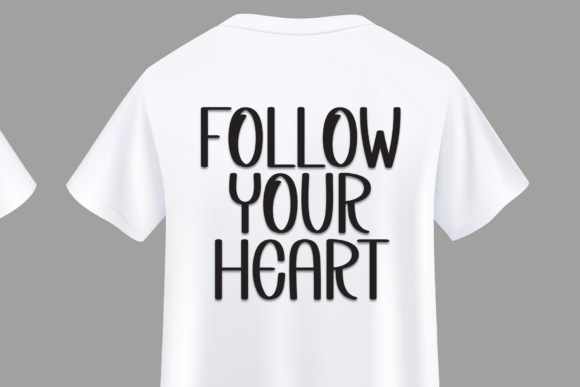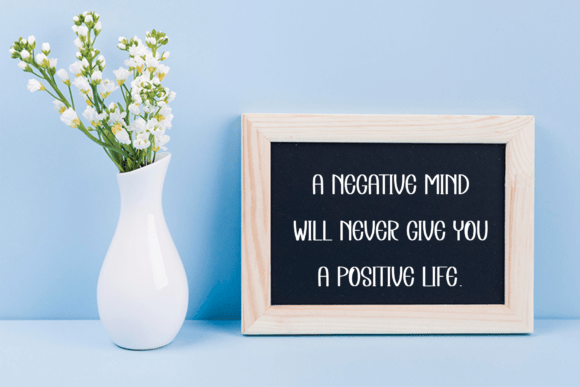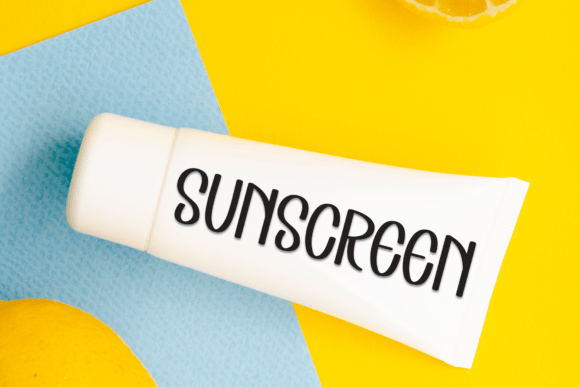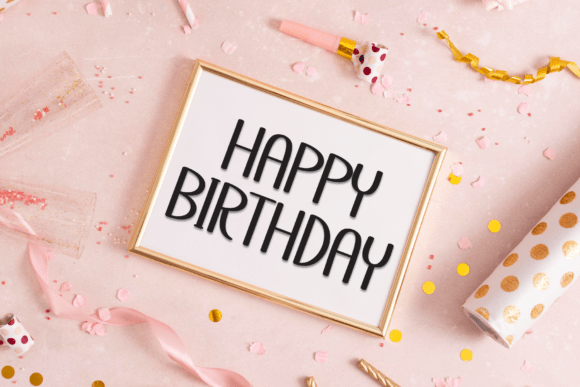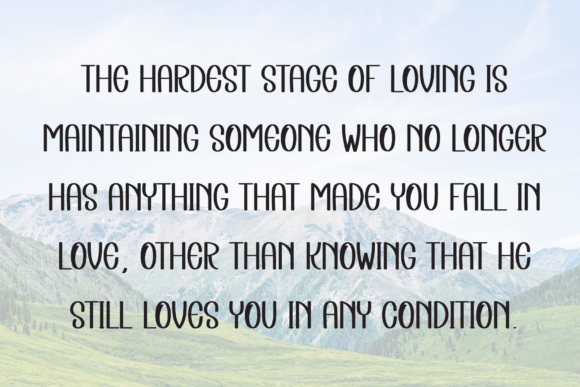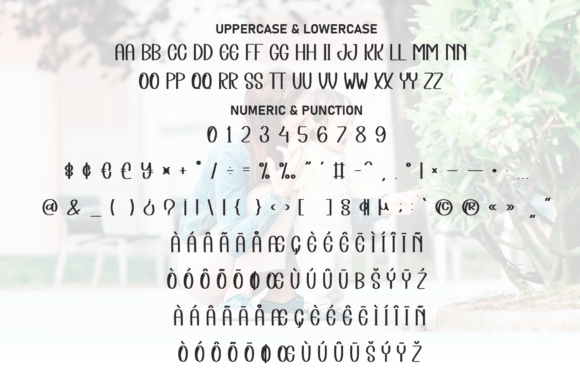
Introduction to Mother Outside Font
As a designer, have you ever been stuck on finding the perfect font to convey a message that’s both heartwarming and visually appealing? I know I have! It’s those moments when I’m brainstorming ideas for a special project, and I stumble upon a font that just clicks. For me, that font is the Mother Outside Font – a charming, handwritten display font that’s sure to add a touch of sweetness to any design project.
Key Features of Mother Outside Font
- High-quality design: Mother Outside Font is a premium font designed for creative projects, offering a unique and elegant look.
- Perfect for creative projects: Mother Outside Font is ideal for use in creative projects, such as branding, logos, and typography-based designs.
Honest Review: Mother Outside Font
Here are some of the things that work well with this font: ✨ High quality design, ✨ Beautifully crafted characters, ✨ Perfect for creative projects that require a personal touch.
Overall, I’m really impressed with the Mother Outside Font. It’s a fantastic design resource that can add a touch of personality to any creative project. If you’re looking for a high-quality font that’s easy to use, I highly recommend giving it a try.
Use the Mother Outside Font for creative projects that require a high-quality, unique font. This font is perfect for designs that need a touch of elegance and sophistication. Experiment with different font sizes and colors to find the perfect combination for your design.
The Mother Outside Font is commonly used for wedding invitations, branding materials, and marketing materials. Its high-quality design and transparent background make it perfect for designs that require a professional touch.